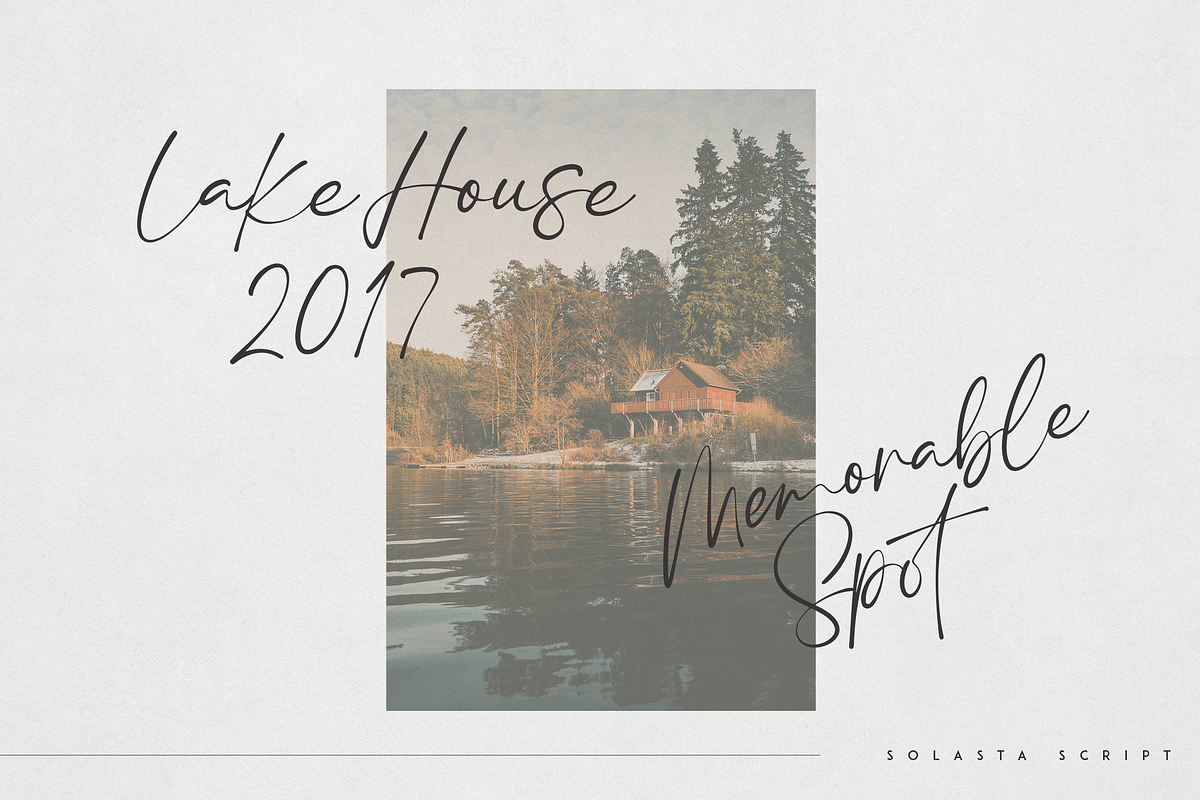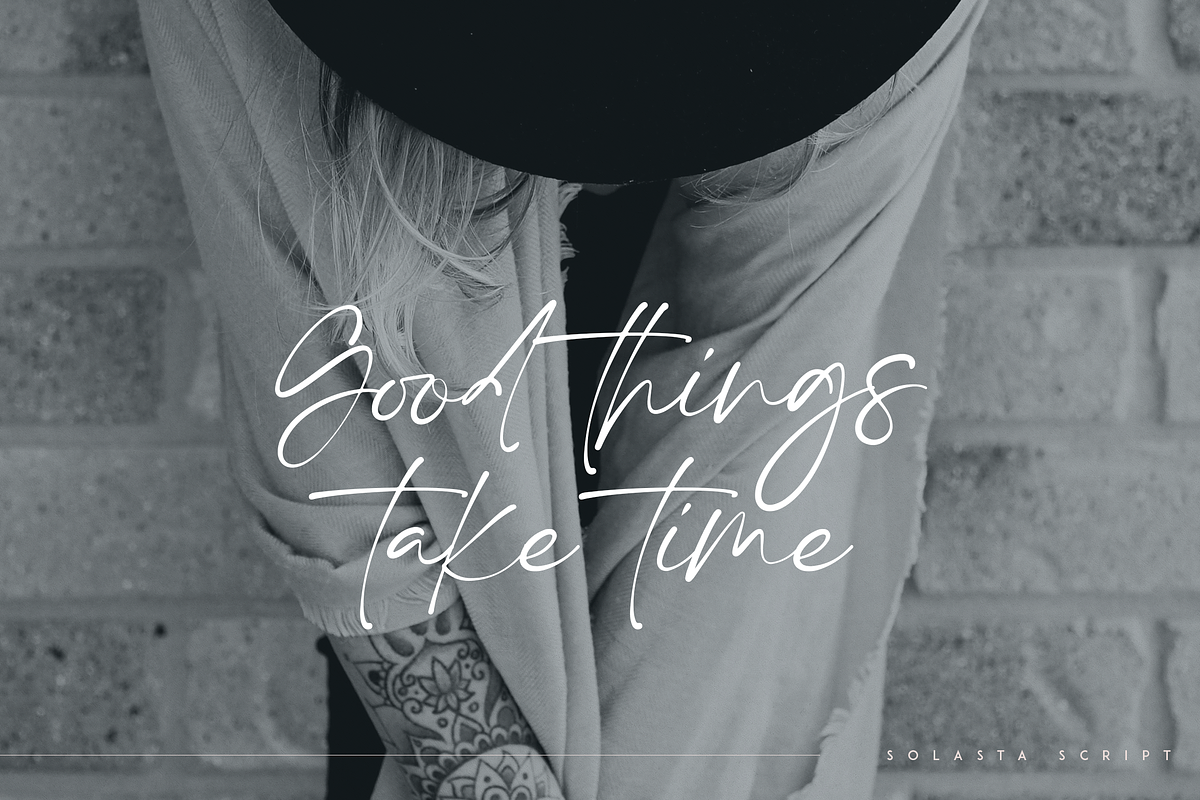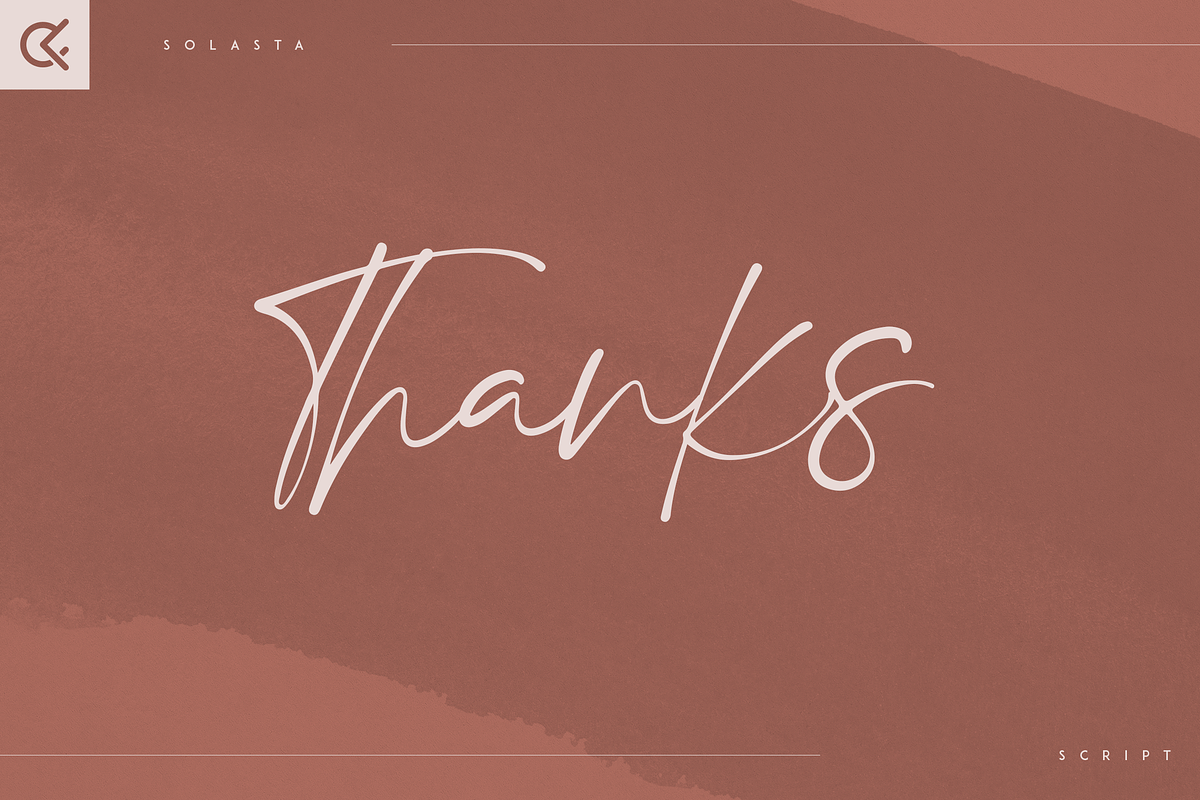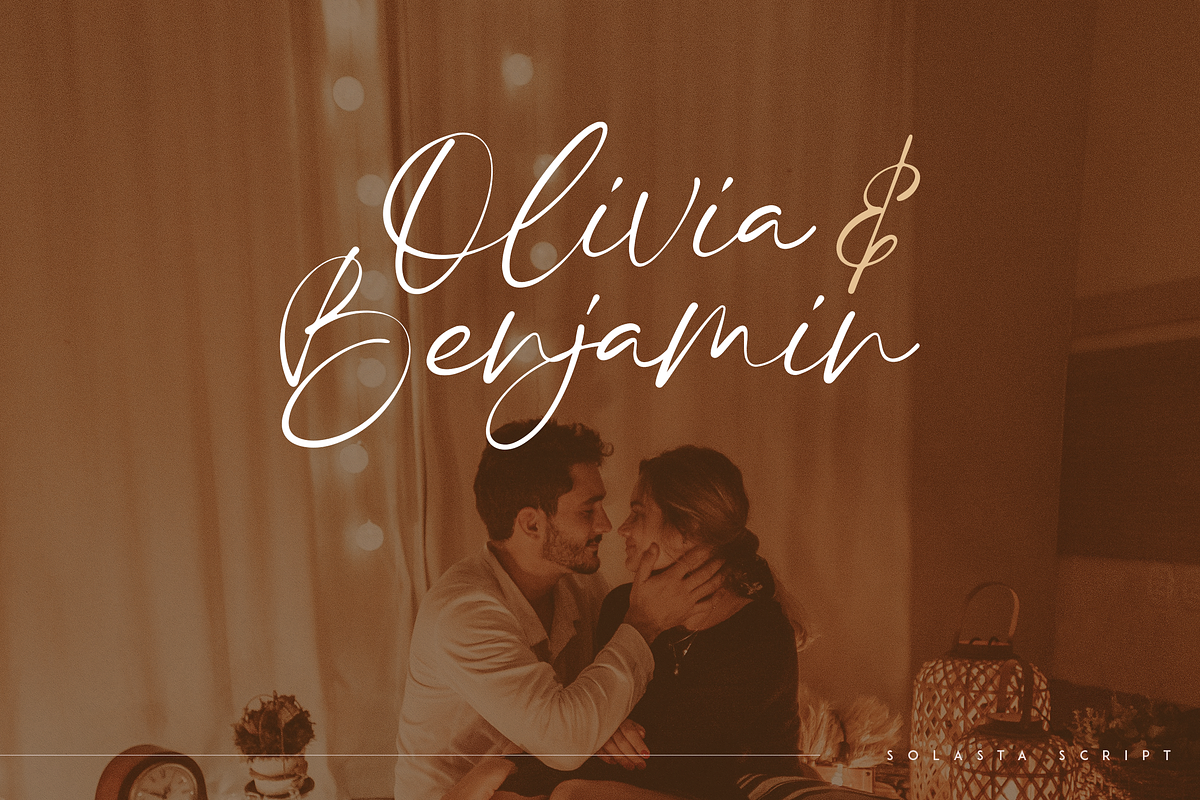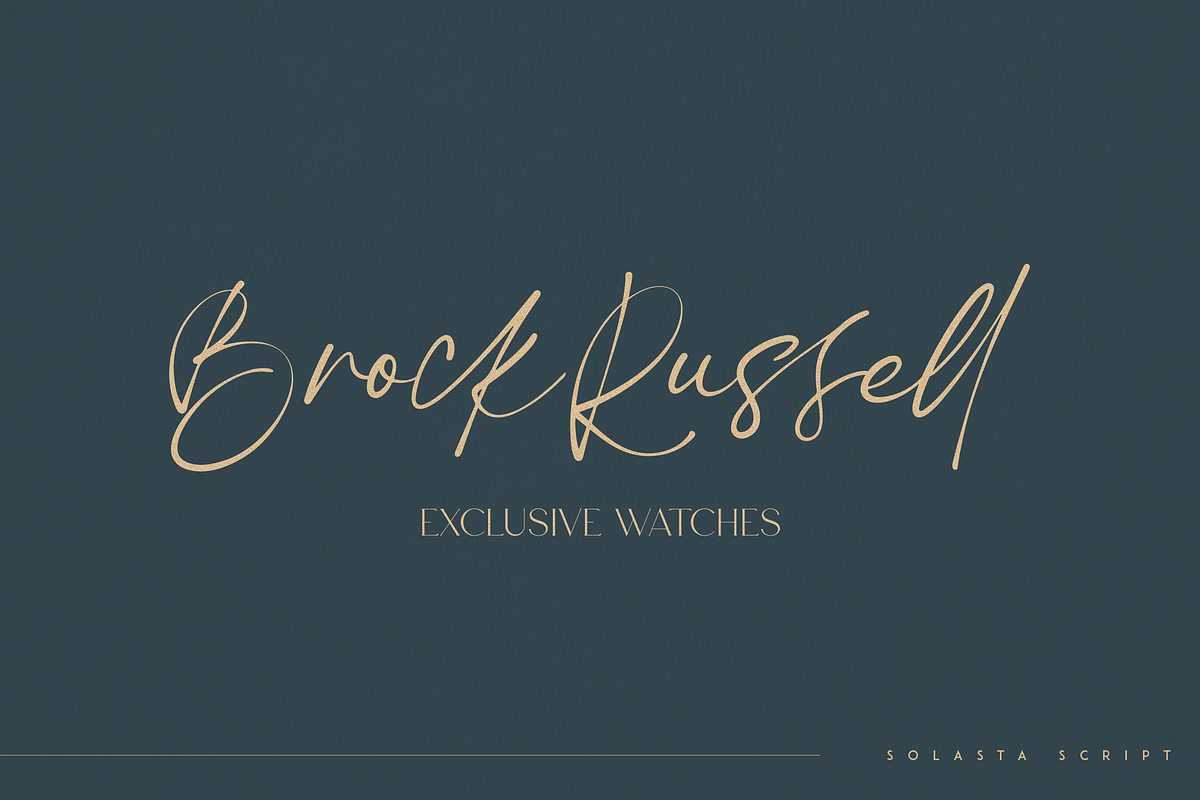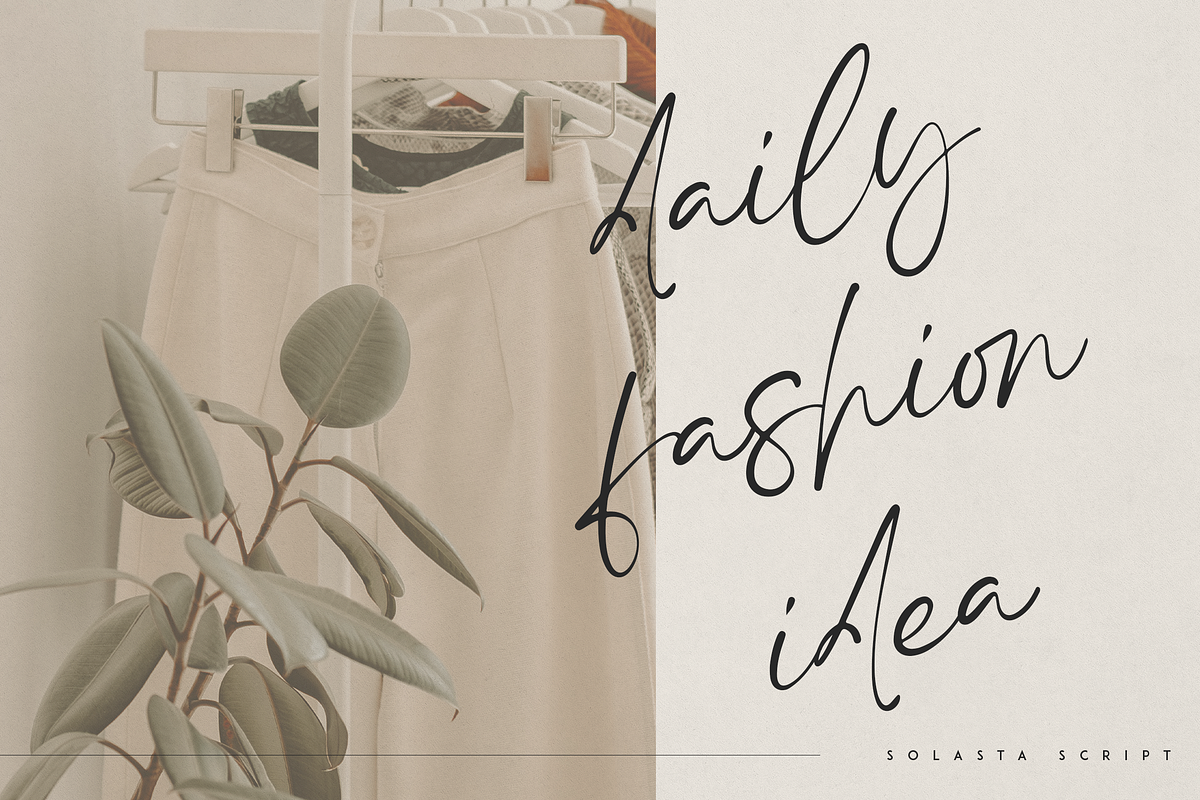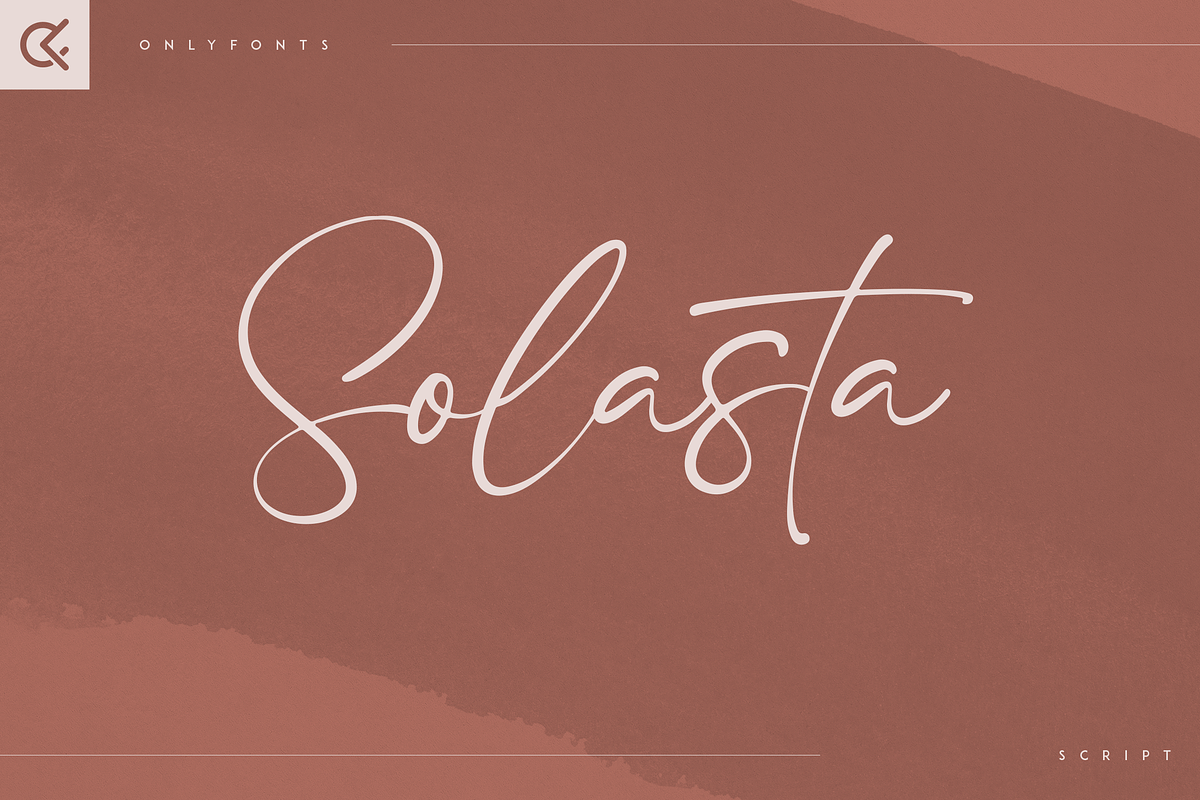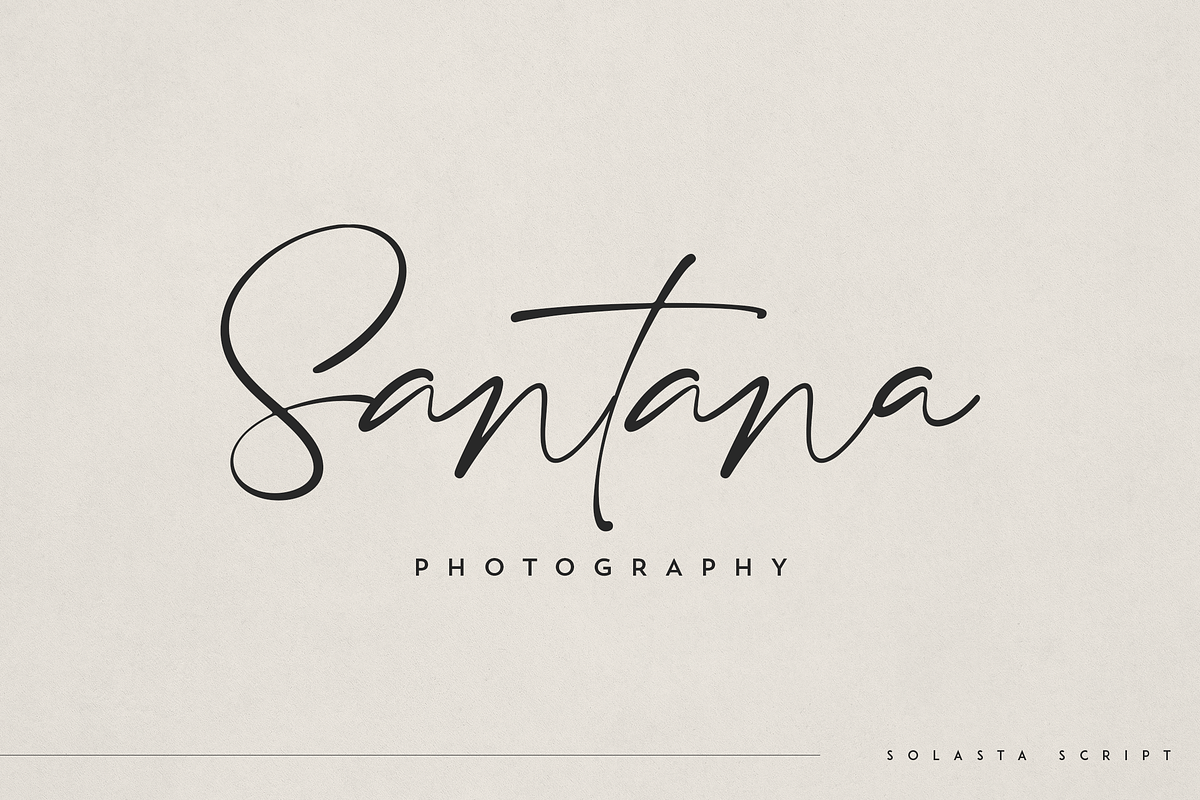
Solasta - organic script font
Introducing Solasta - organic script
Solasta is organic and modern script loaded with ligature glyphs and multilingual support. It's a very versatile font that works great in large and small sizes.
This font is perfect for branding projects, home-ware designs, product packaging, magazine headers - or simply as a stylish text overlay to any background image.
- Uppercase, lowercase, numeral, punctuation & Symbol
- ligature glyphs